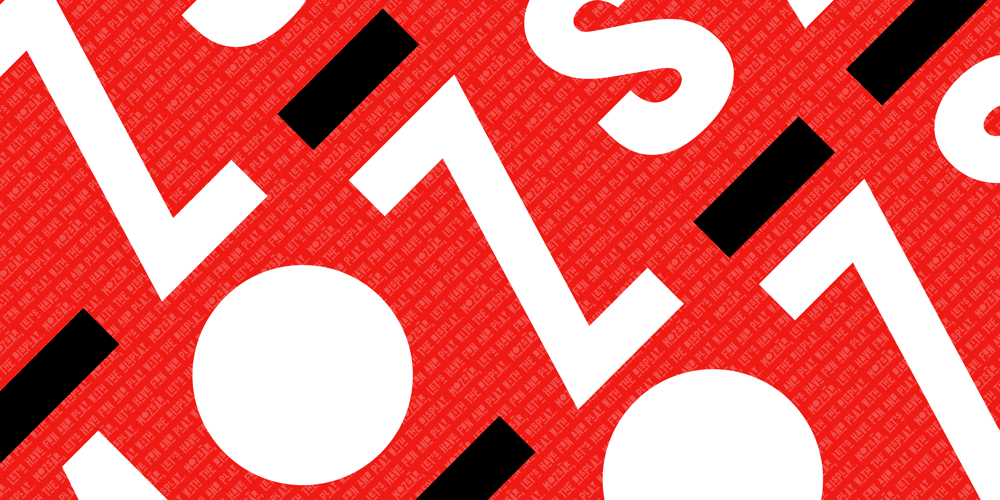
Mozsar Font Family was designed by Miklos Ferencz and published by Miklós Ferencz. Mozsar contains 1 styles and family package options. Mozsár, named after Mozsár Street in the downtown of Budapest (pronounced ‘mo-zhar’, meaning mortar in Hungarian.) Mozsár is a unicase display typeface with constructivist characteristics from the early 20th Century. It uses pure geometric shapes and purposefully departs from strict typographical rules to give a more friendly look. With Mozsár you can create really unique and awesome looking displays, titles and even name plates for your business. It works very well in big size. The central idea behind the design was that two variants of the typeface would randomly alternate as the user types. The typeface uses Contextual Alternates (CALT) created with the OpenType’s semi-random feature to mix the variants. The width and height of the letter shapes are generally equal, but I made some exceptions to lend the type a character of unexpectedness. The curves are identical in both versions of each letter, and the intersections of the axes are always perpendicular (with some evident exceptions).